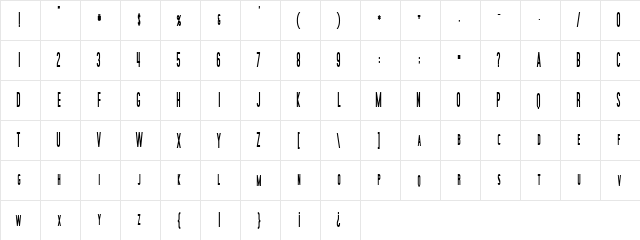
Movie Poster Condensed Bold
Design Context for Movie Poster Condensed Typeface
Movie Poster Condensed is a composed and adaptable typeface that performs quietly and consistently across a wide range of design contexts. Its bold stroke weight gives it real presence on the page. Its narrow stance lets it pack a punch even in space-constrained designs.